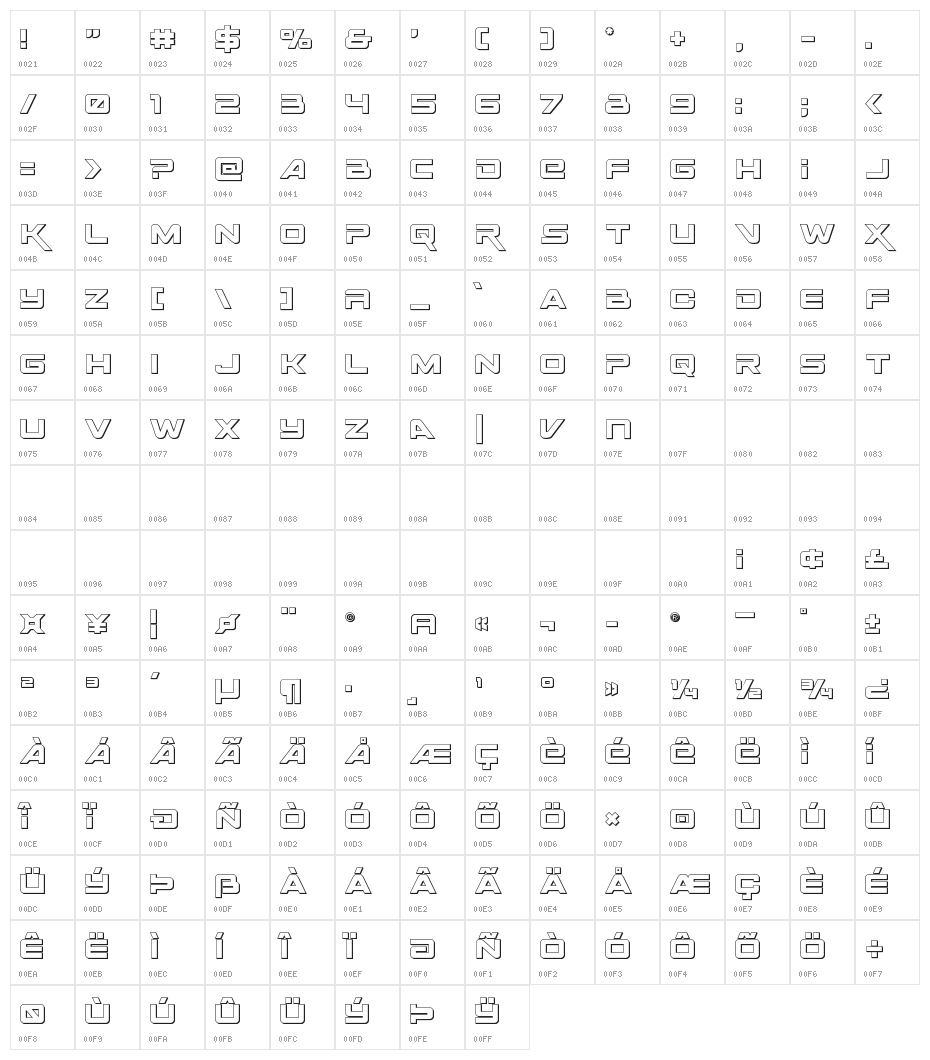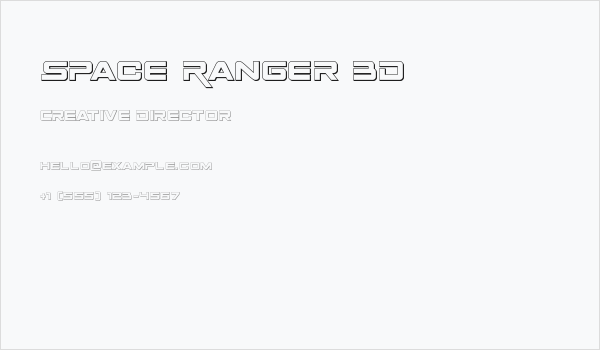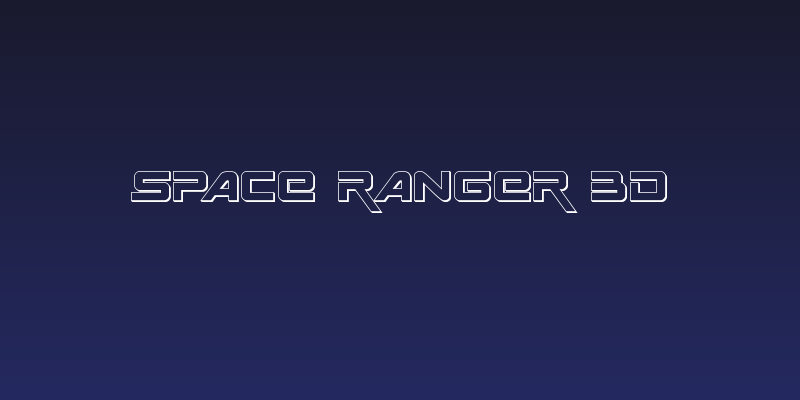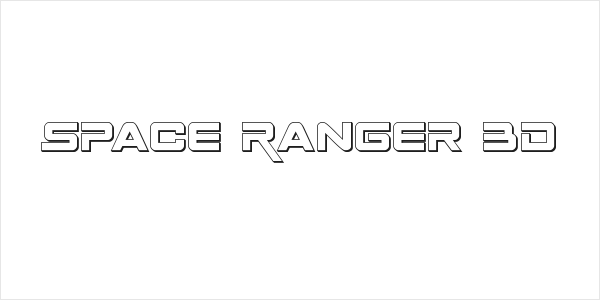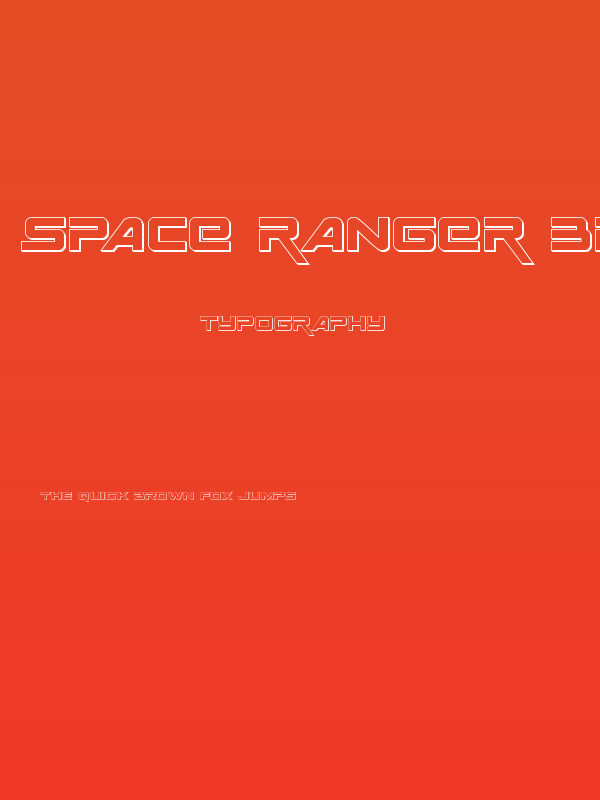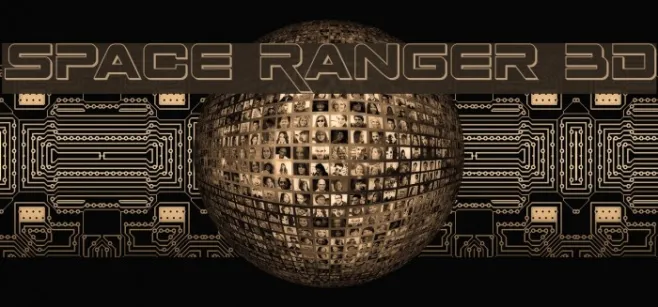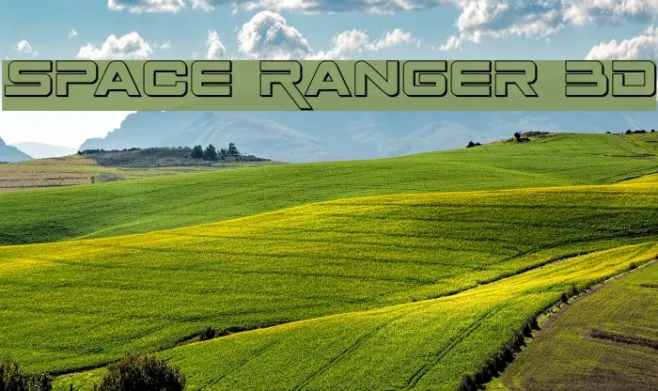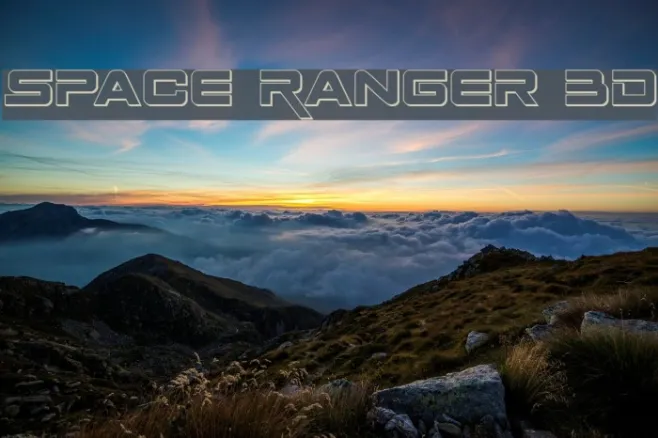
Space Ranger 3D Font
Space Ranger 3D Description
This font features a futuristic and geometric design, characterized by bold, angular lines and a three-dimensional appearance. The uppercase letters are distinct with sharp edges and a sense of depth, while the lowercase letters maintain a consistent style with a slightly more compact form. The numerals are equally bold and angular, matching the overall aesthetic. Special characters are included, maintaining the same geometric style, making this font versatile for various uses. The design suggests a modern, tech-inspired theme, suitable for projects that require a strong, impactful visual presence.
| Proposed Projects | Ideal for sci-fi themed designs, video game graphics, tech branding, and futuristic posters. |